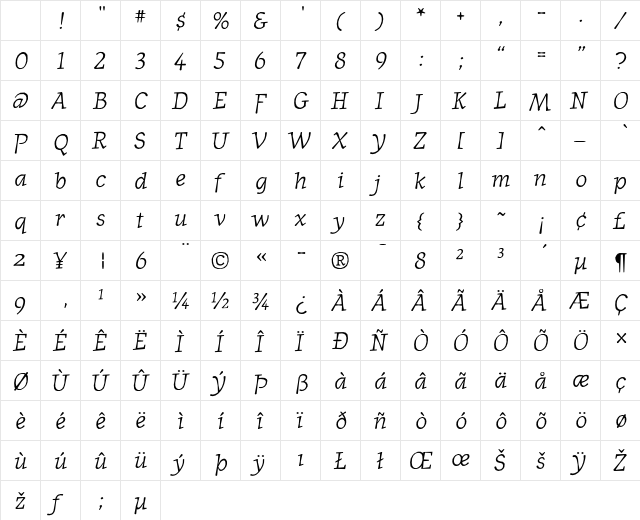
Complete JournalItalic Medium Italic glyph index. Displaying only characters natively supported by JournalItalic Medium Italic font.
JournalItalic is a composed and adaptable typeface that performs quietly and consistently across a wide range of design contexts. The slanted form adds forward momentum and visual energy.
Pro Tip: Use JournalItalic for emphasis, pull quotes, and subheadings where its slanted energy can add rhythm to the layout.
Who designed the JournalItalic Medium Italic font?
This font was published by C) Emigre Graphics, designed by Zuzana Licko. Check the technical specs section for copyright and designer details.